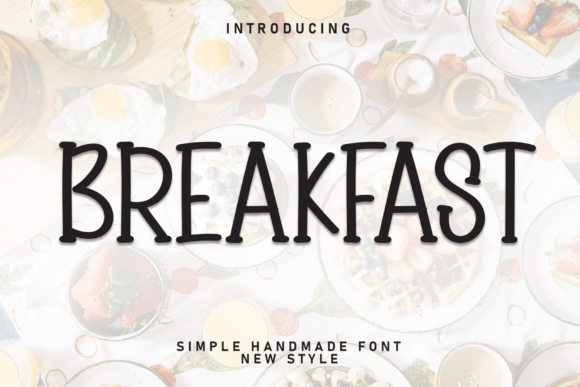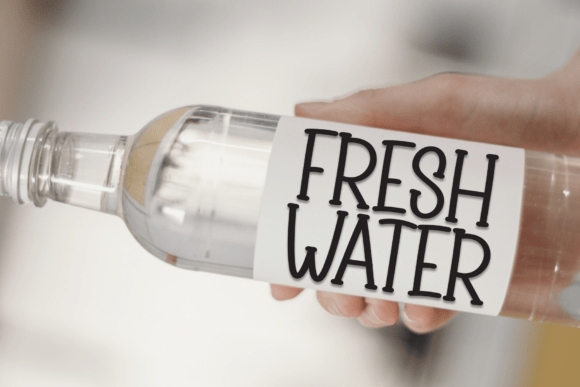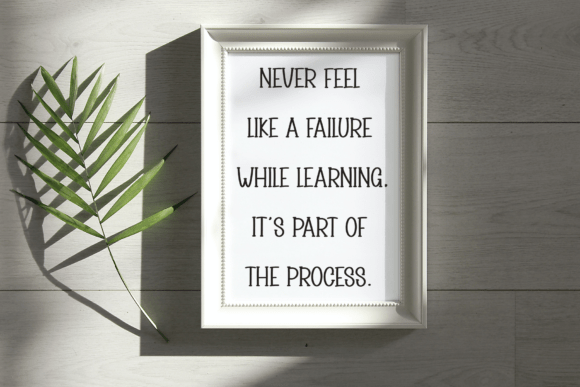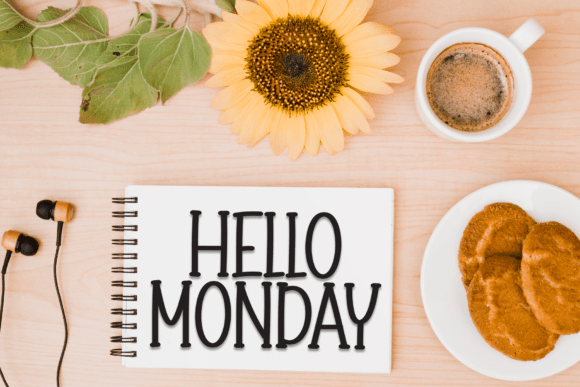
Breakfast Font
Breakfast is a casual and neat display font that radiates a fresh, friendly vibe. With clean lines and a relaxed structure, it’s perfect for packaging, posters, and social media graphics. The approachable design adds charm and clarity to projects while maintaining a polished appearance.